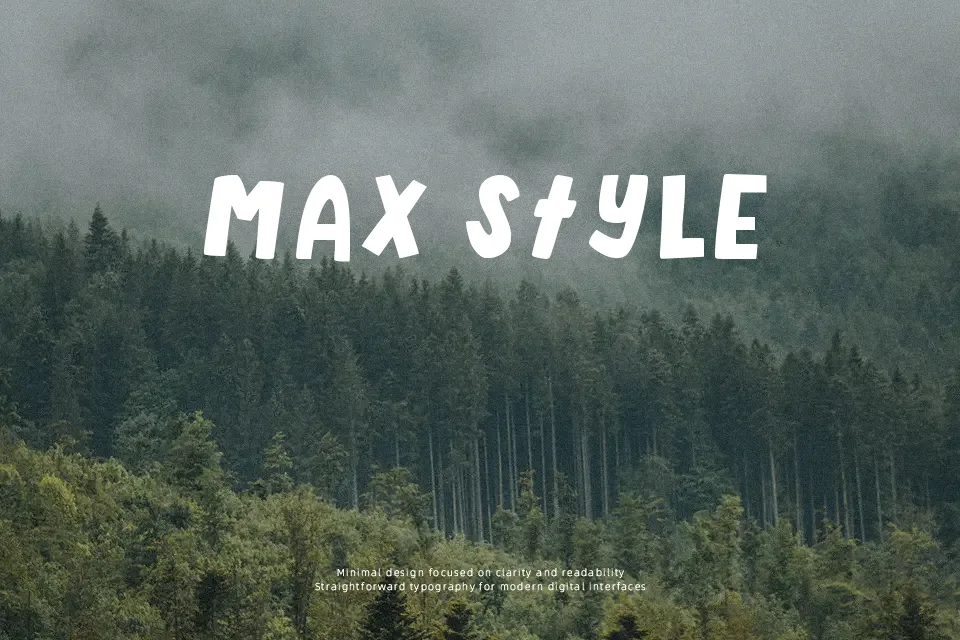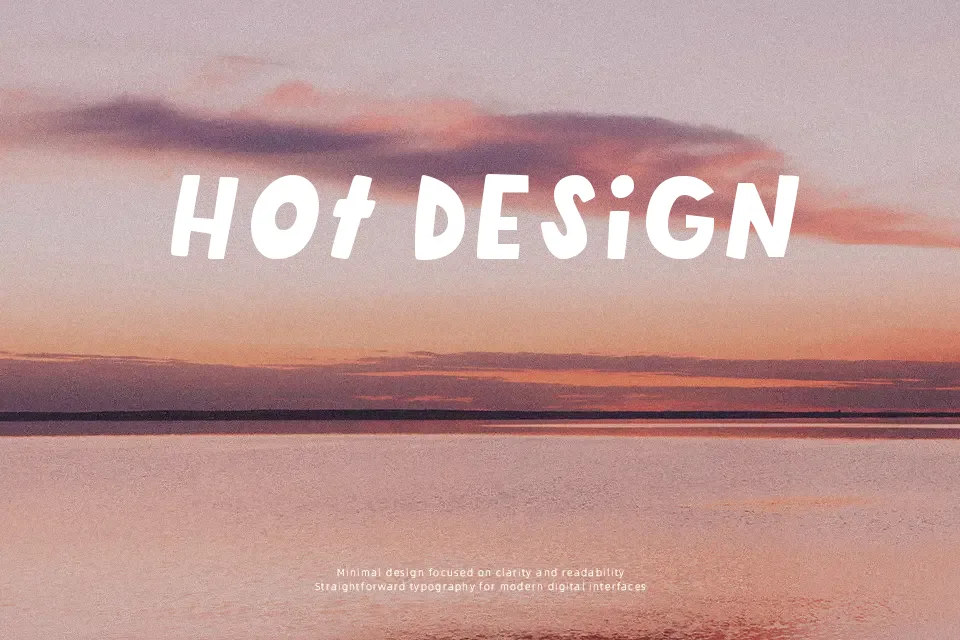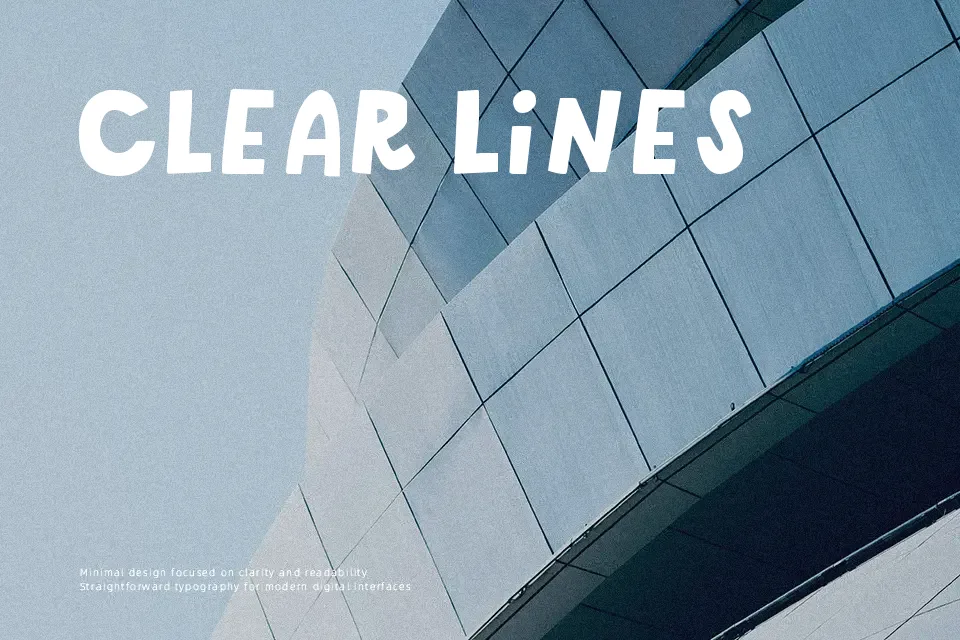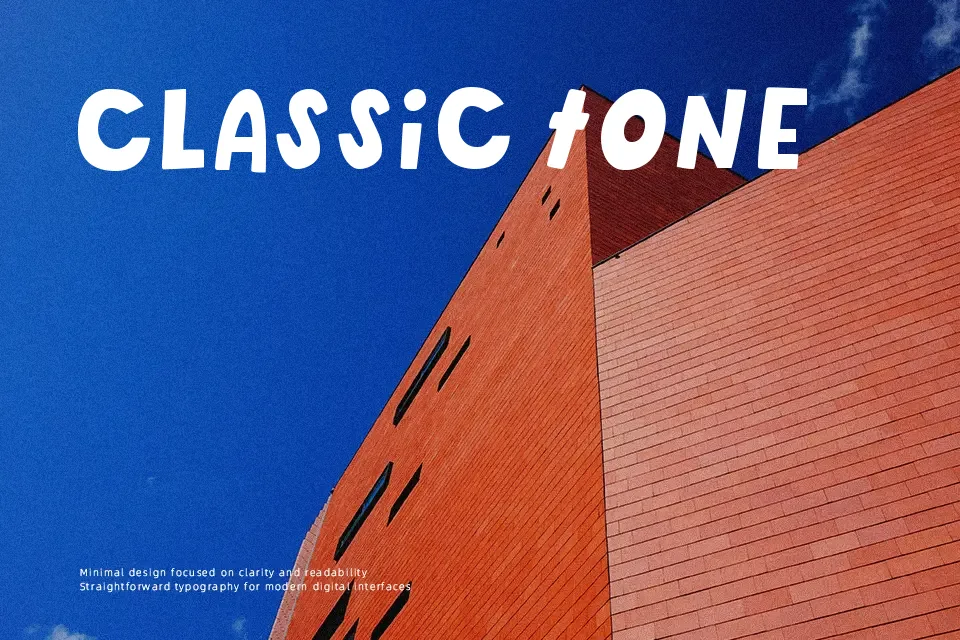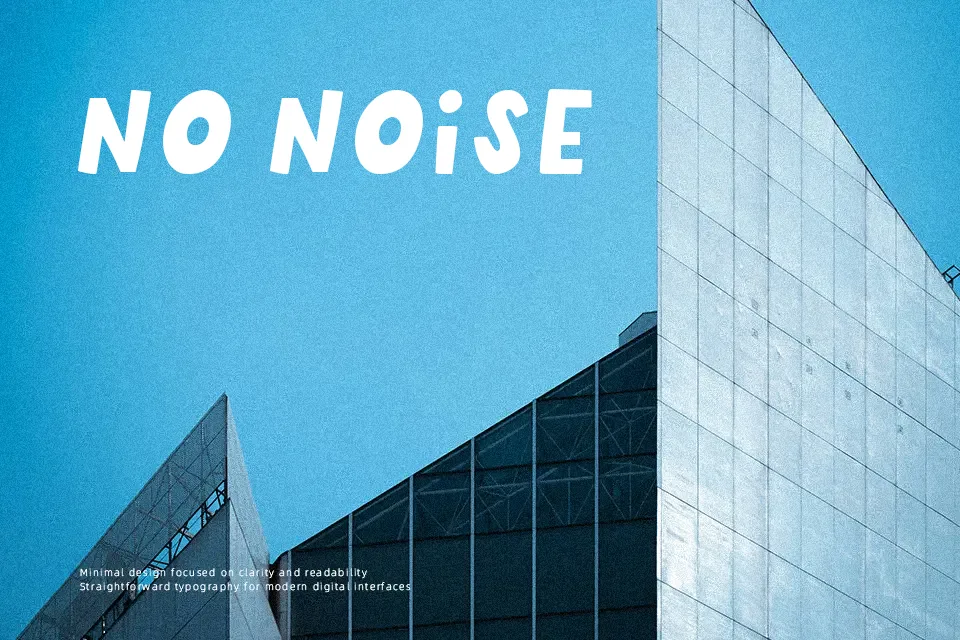
New Adventure Font
Designed by Dylan Hawks
Letters in this typeface appear as chunky, rounded cartoon shapes with strong horizontal and vertical strokes that stay fairly even in weight across the glyphs. Curves are soft and inflated, with terminals that feel more bubble-like than sharp, reinforcing its playful, character-focused style. Spacing looks balanced at display sizes, keeping individual letters clearly separated without large gaps, though the text quickly feels dense in longer lines. Overall structure reads as decorative display lettering: wide, bold forms, simplified details, and clear outlines that remain legible when used big. Characters stay distinguishable in headlines and logos, but the heavy, cartoonish construction makes continuous body text tiring to scan. This makes it a good choice for title graphics, children’s branding, and playful packaging, while small captions or long paragraphs are better served by a simpler face.
children’s book or game titles,toy or cartoon logo lockups,kids’ event posters and banners,playful packaging headlines
long paragraph text or articles,formal corporate reports,small ui labels and tooltips,technical manuals or data-heavy layouts